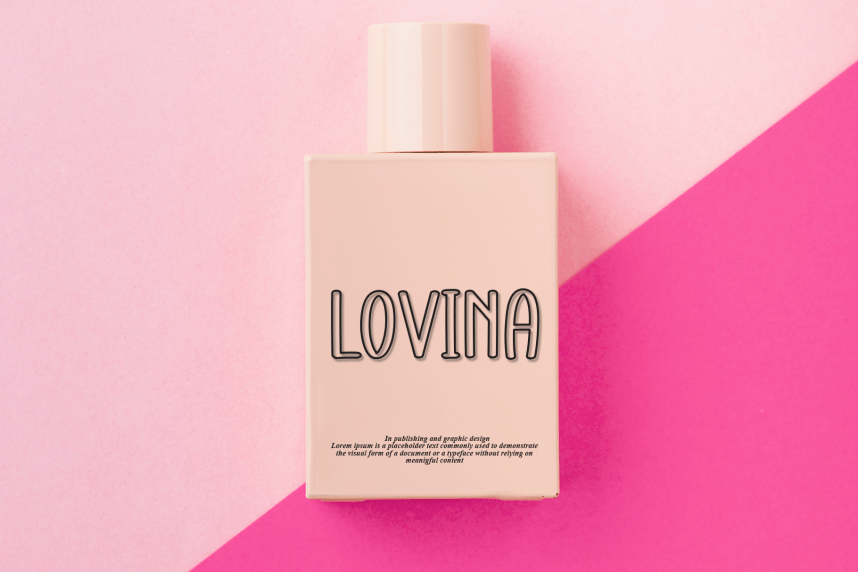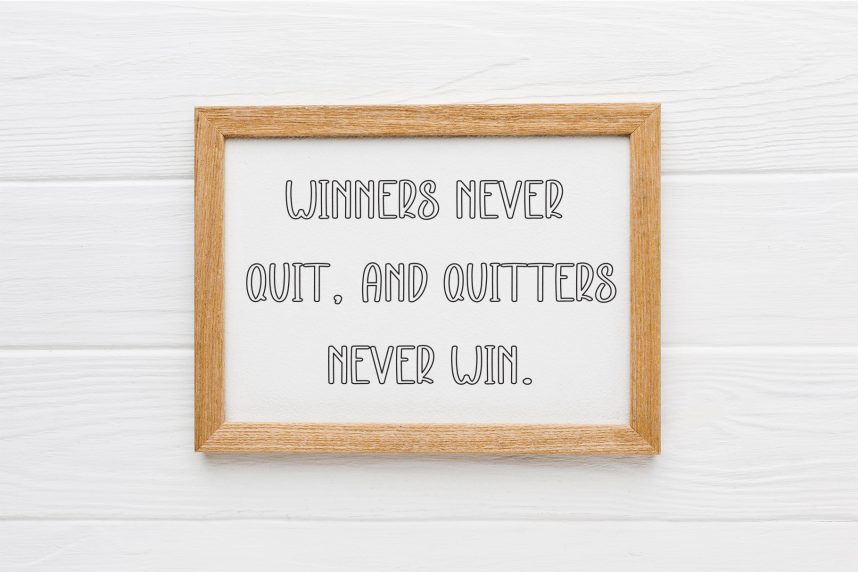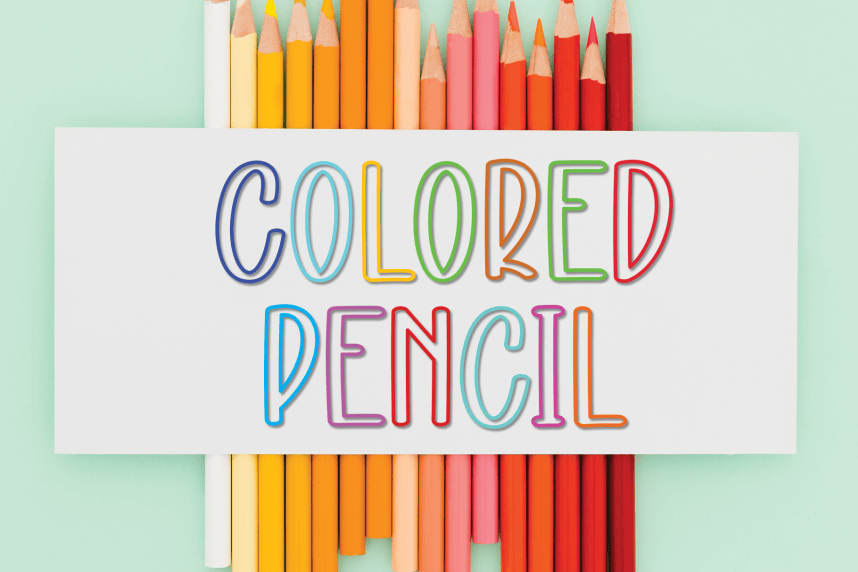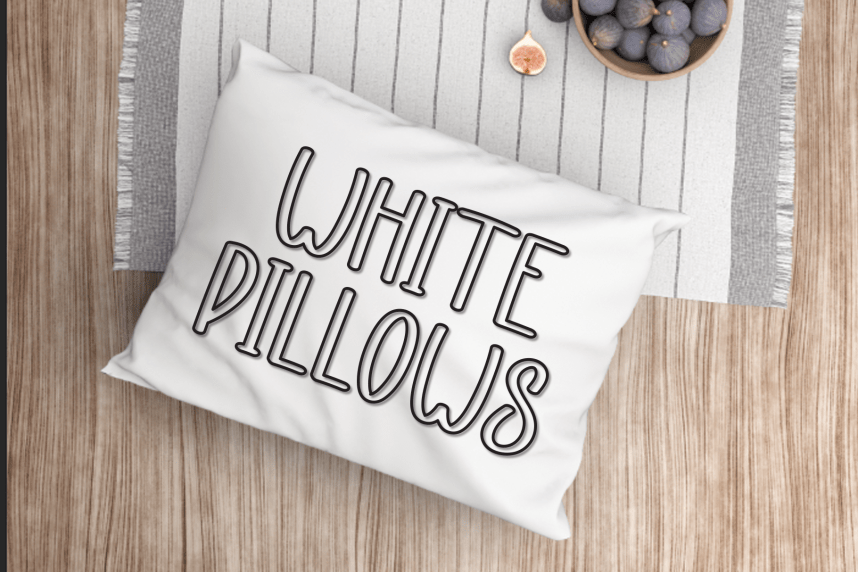
Creative Farmhouse – Moder Style Font
Creative Farmhouse – Moder Style Font is a sweet and friendly handwritten display font. Cute and fun, this font is ideal for writing wedding invitations, cards, or any other design that might need a playful touch!